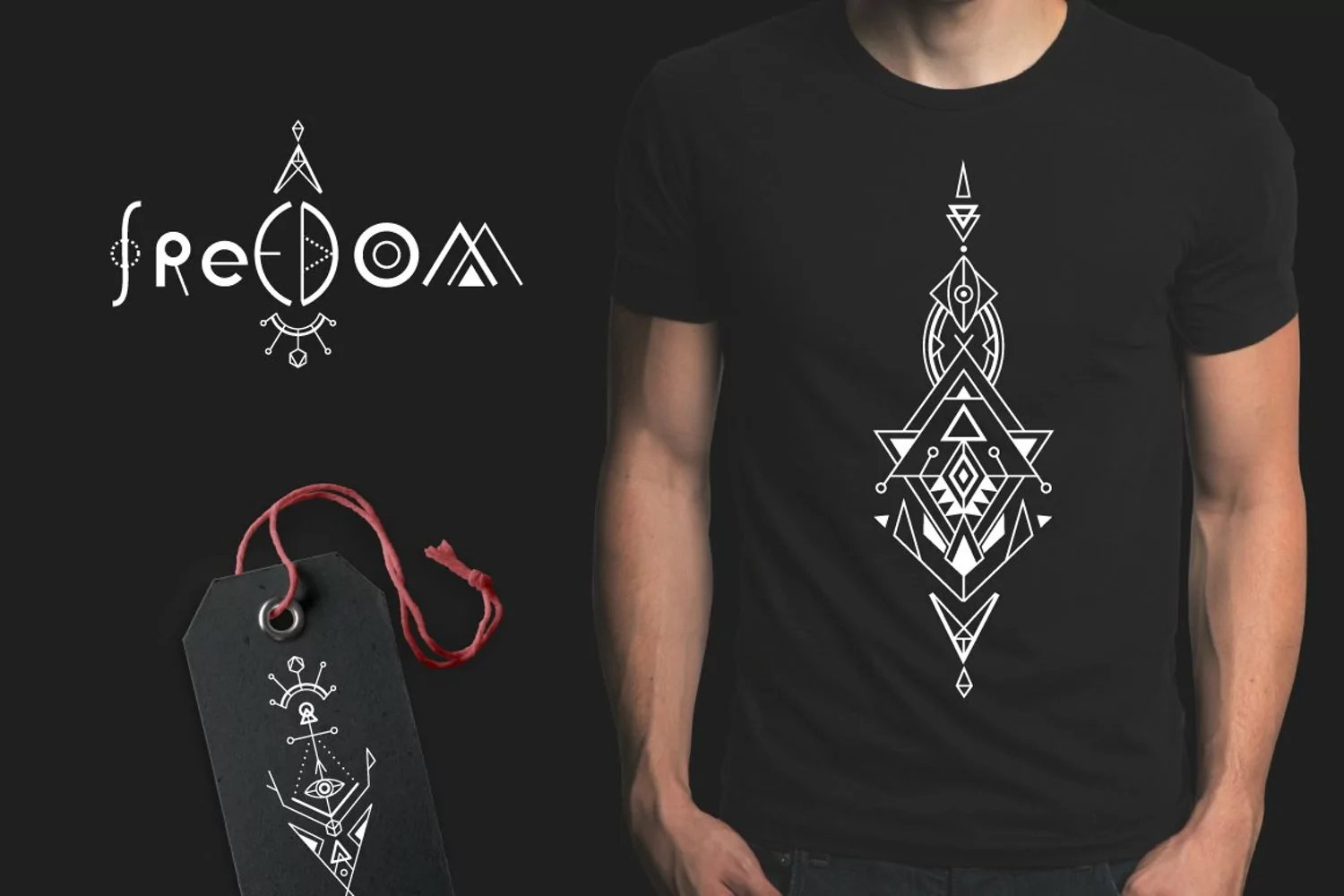
Space Geometry Font + Vector Bonuses
- 1 OTF Space Geometry Font, where you can change uppercase and lowercase any minute to make alternative letterings!
- 1 OTF Decorative Geometry font of images, which is made of geometry ornaments. Don't try to read it :)